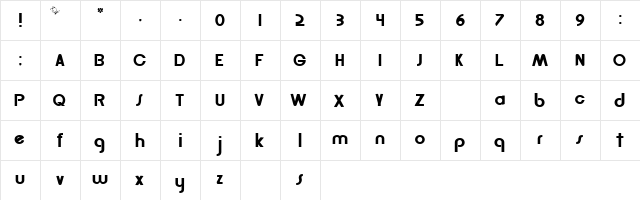
Golder Normal
Design Context for Golder Typeface
Golder offers clean, dependable letterforms without strong stylistic allegiance, making it a practical choice for designers who need flexibility.
Pro Tip: Pair Golder with a font of contrasting weight or personality to build a more expressive typographic hierarchy.